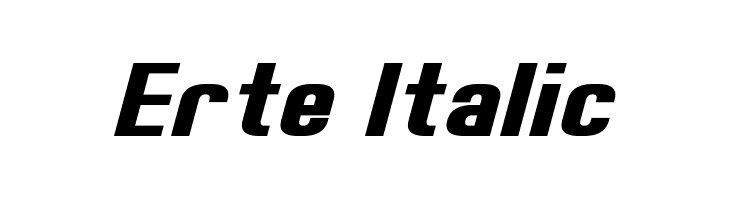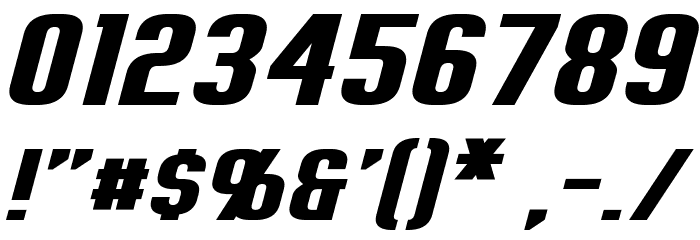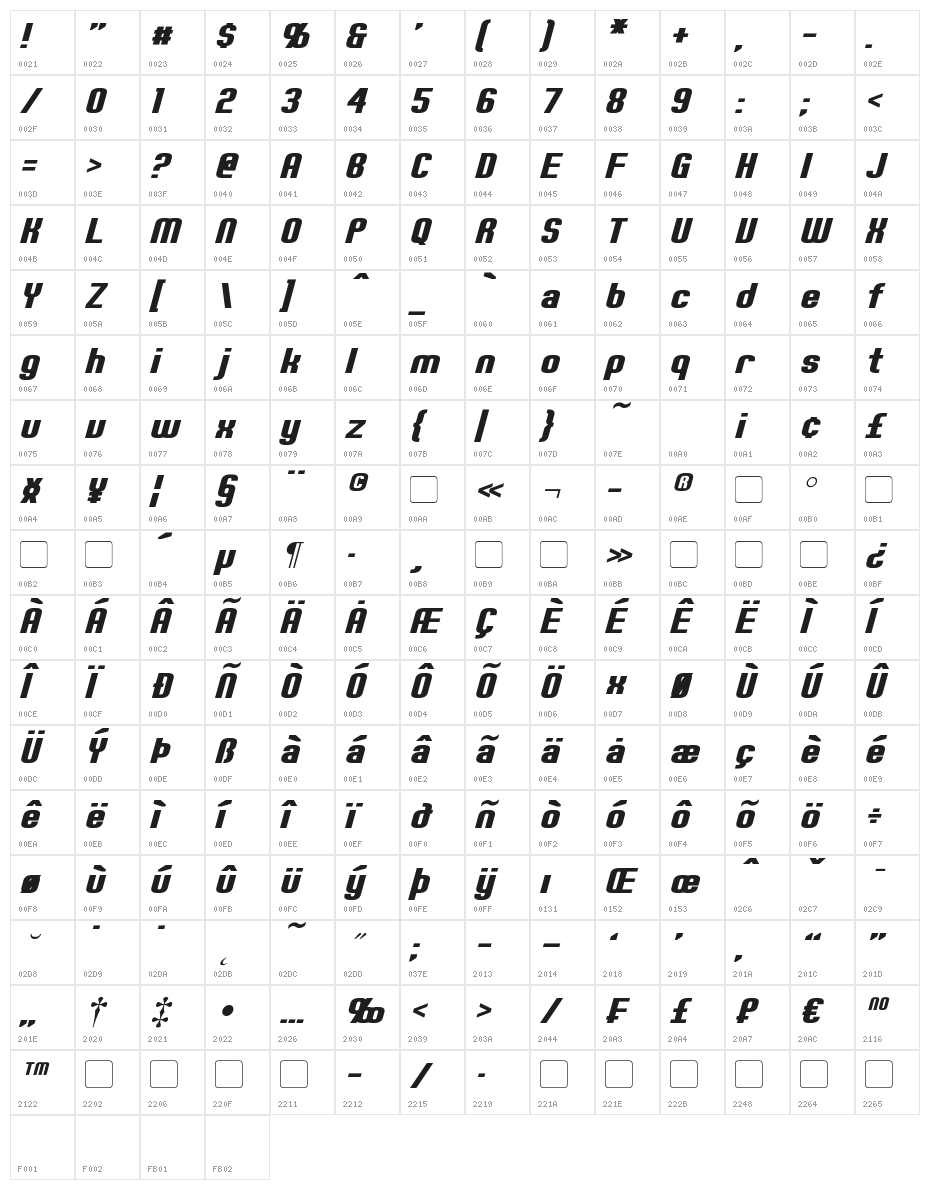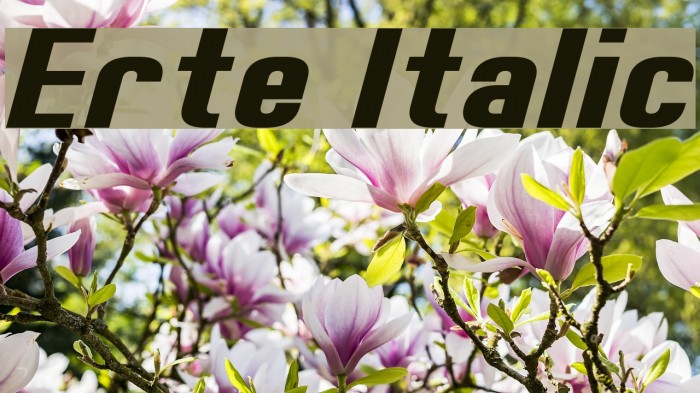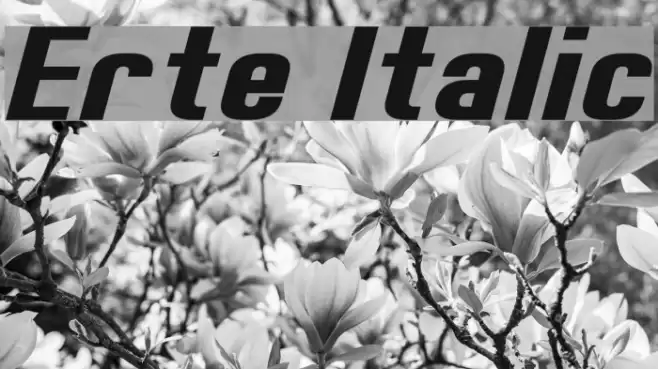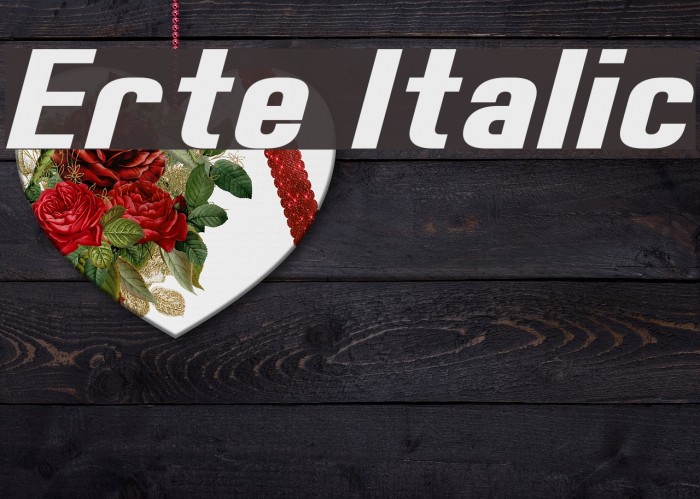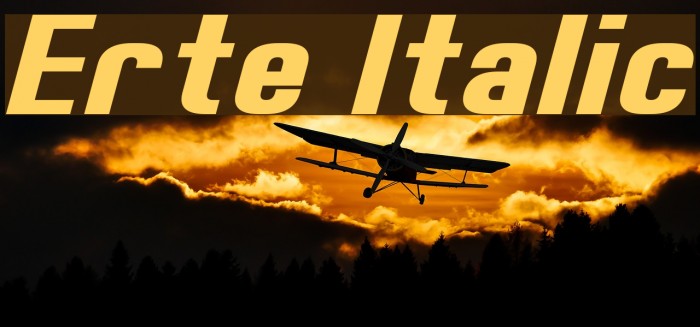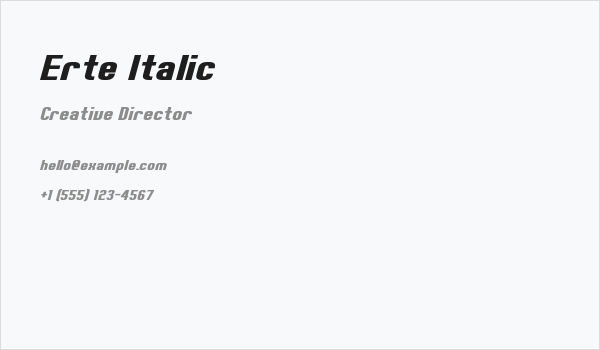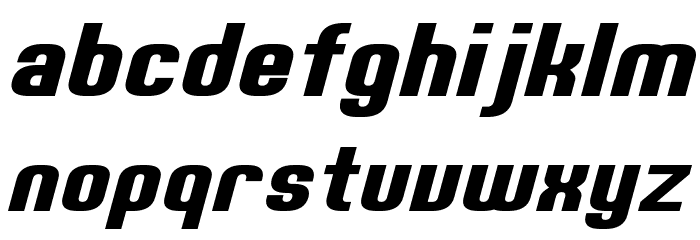
Erte Italic Font
Erte Italic Description
This font features a bold and dynamic style with a distinct italic slant, giving it a sense of motion and energy. The characters are robust and slightly condensed, with a consistent stroke width that provides a uniform appearance. The uppercase letters are tall and commanding, while the lowercase letters maintain a balanced proportion, ensuring readability. The numerals are clear and bold, matching the overall aesthetic. Special characters are well-integrated, maintaining the font's cohesive look. This typeface is suitable for making a strong visual impact.